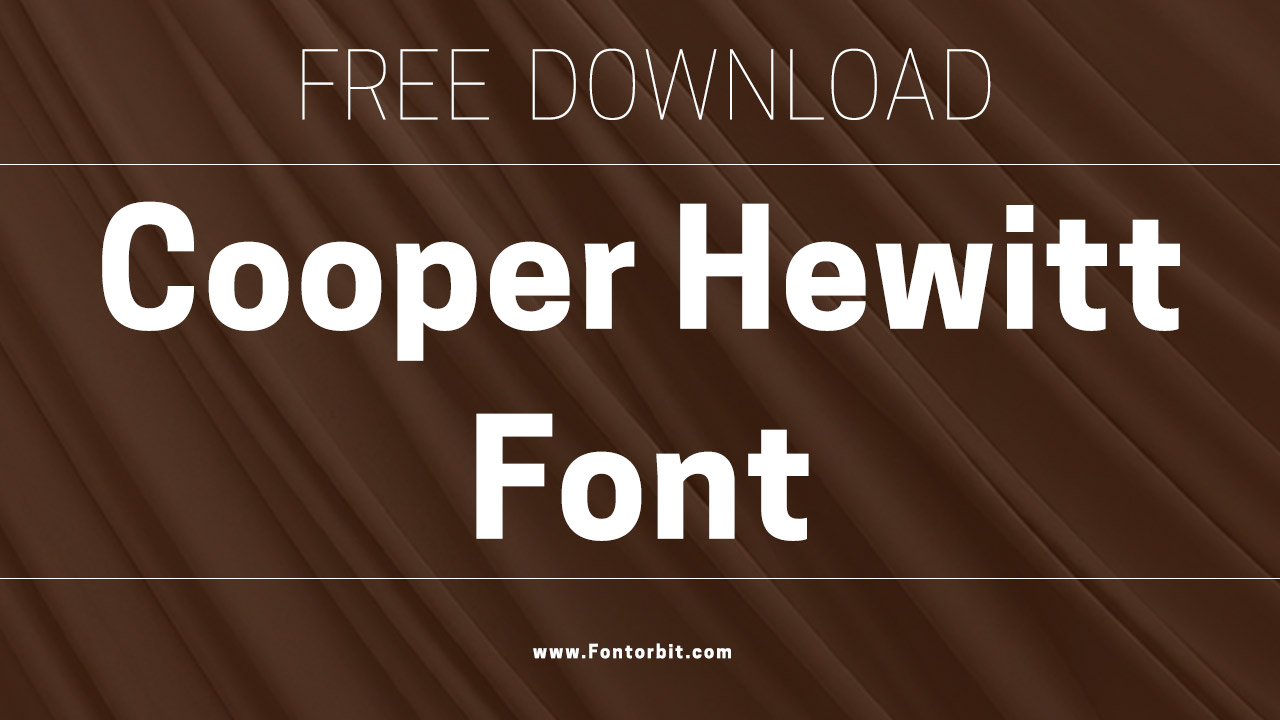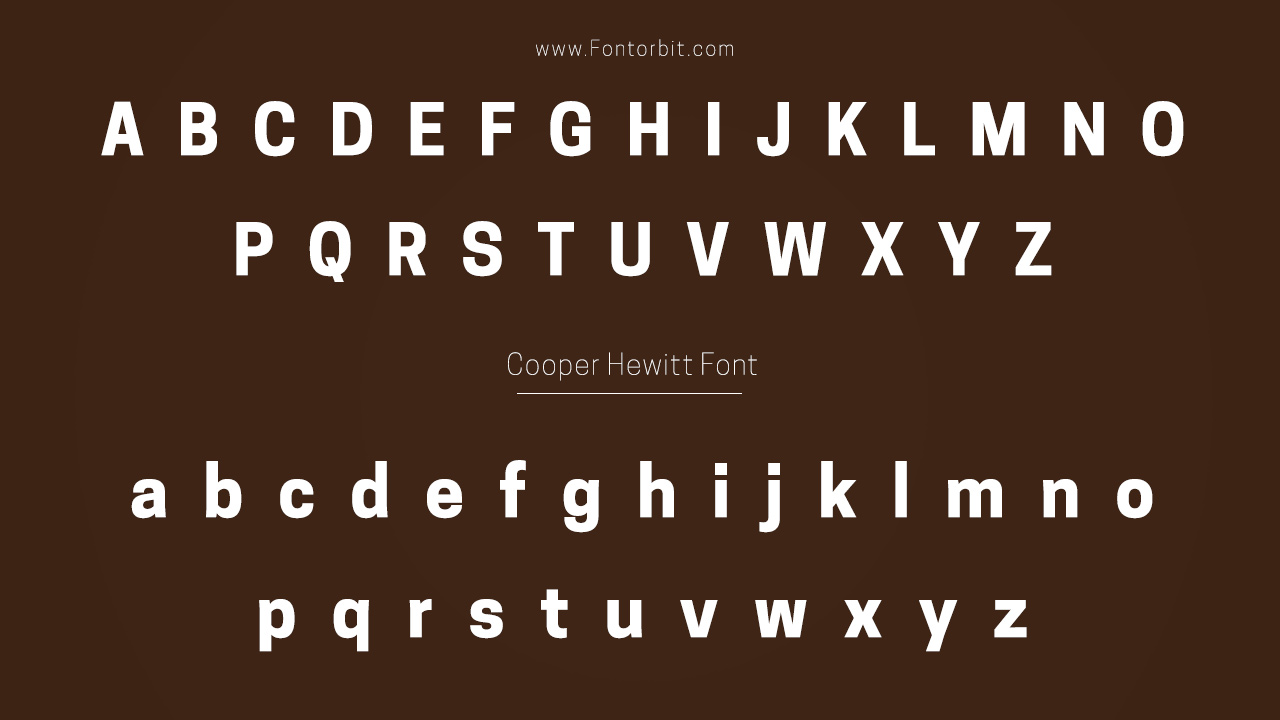
Cooper Hewitt Font is a contemporary sans-serif typeface designed by Chester Jenkins, created for the Cooper Hewitt Smithsonian Design Museum as part of their new visual identity in 2014. This versatile font family includes a wide range of styles from Cooper Hewitt Thin to Cooper Hewitt Heavy, making it ideal for various design applications. The Cooper Hewitt Typeface is recognized for its clean, modern design with modified geometric curves and arches, giving it a sleek and professional look suitable for branding, graphic design, and signage.
Best Uses
Cooper Hewitt Font works perfectly for:
- Branding & Logo Design
- Web Design (especially for body text and headings)
- Editorial Design (magazines, books, and articles)
- Graphic Design (posters, banners, and advertisements)
- Signage (modern and clean aesthetic)
- Print Materials (business cards, brochures)
Cooper Hewitt Font is a versatile sans-serif typeface that combines contemporary aesthetics with functional design. Its range of weights, from Cooper Hewitt Thin to Cooper Hewitt Heavy, provides flexibility for both body text and large display text. Ideal for graphic design and typography, it ensures clarity and modern appeal for websites, branding, and printed materials. Whether you opt for the full Open Font License version or use it for commercial projects, Cooper Hewitt brings professional design into any creative endeavor.
2.Can I Use Cooper Hewitt For Branding?
Absolutely! Cooper Hewitt is a new typeface that’s perfect for branding, logo design, and other custom typeface projects. Its modern, clean style is ideal for businesses aiming for a professional, contemporary aesthetic.
3.What Is The Inspiration Behind Cooper Hewitt?
Cooper Hewitt was created to reflect the visual identity of the Cooper Hewitt Smithsonian Design Museum. The font is based on contemporary sans-serif principles with geometric shapes, designed to meet the museum’s updated branding needs.
4.Can I Use Cooper Hewitt For Signage?
Yes, Cooper Hewitt works well for signage, thanks to its clean lines and modern appeal. Its letter widths make it ideal for both large-scale display text and smaller signage applications.